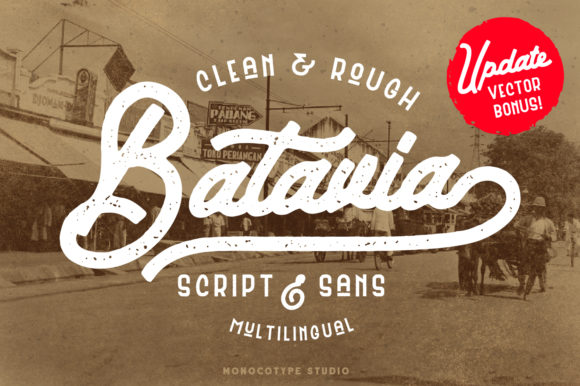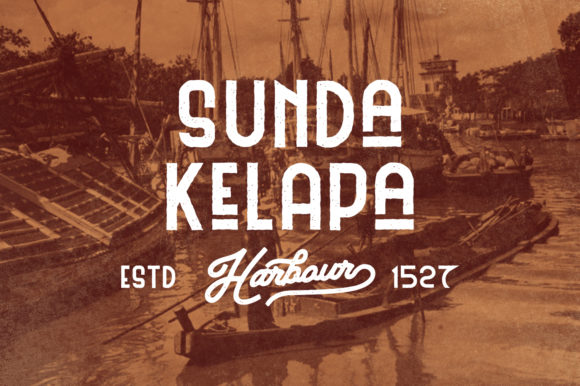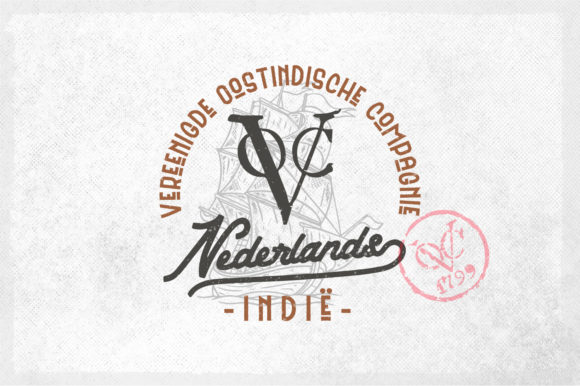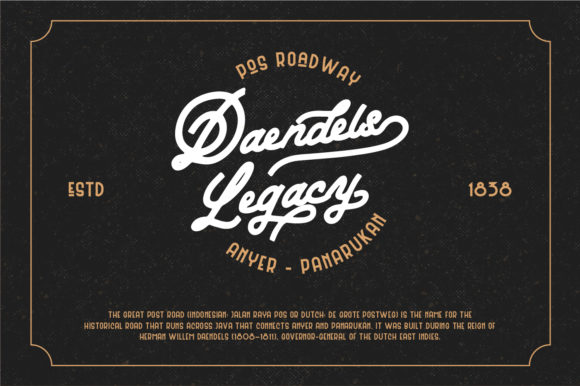
About Batavia Duo Font
The Batavia Duo was crafted by hand and inspired by the atmosphere of Batavia, a city in the Dutch East Indies which is now renamed Jakarta.
It includes as script and a sans version which, when combined, create a perfect vintage mood. It can be used in different projects, such as: lettering and logotype, labels, t-shirts, product packaging, invitations, advertising and any much more!